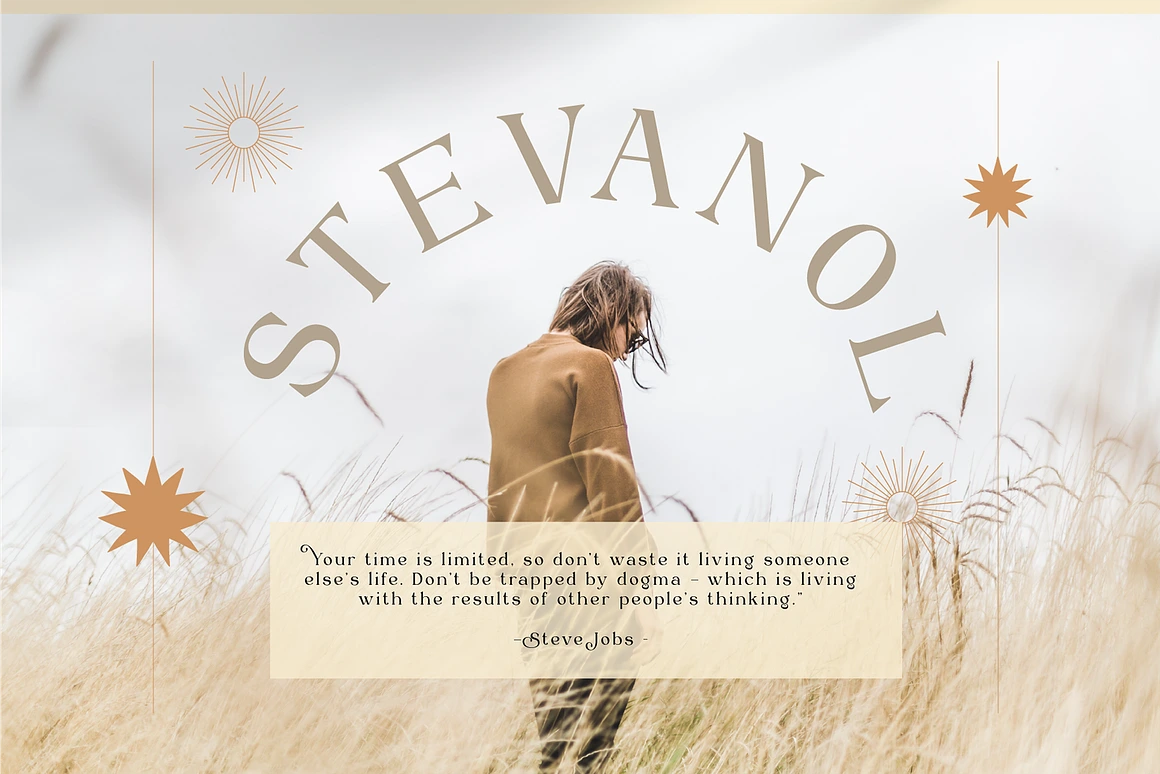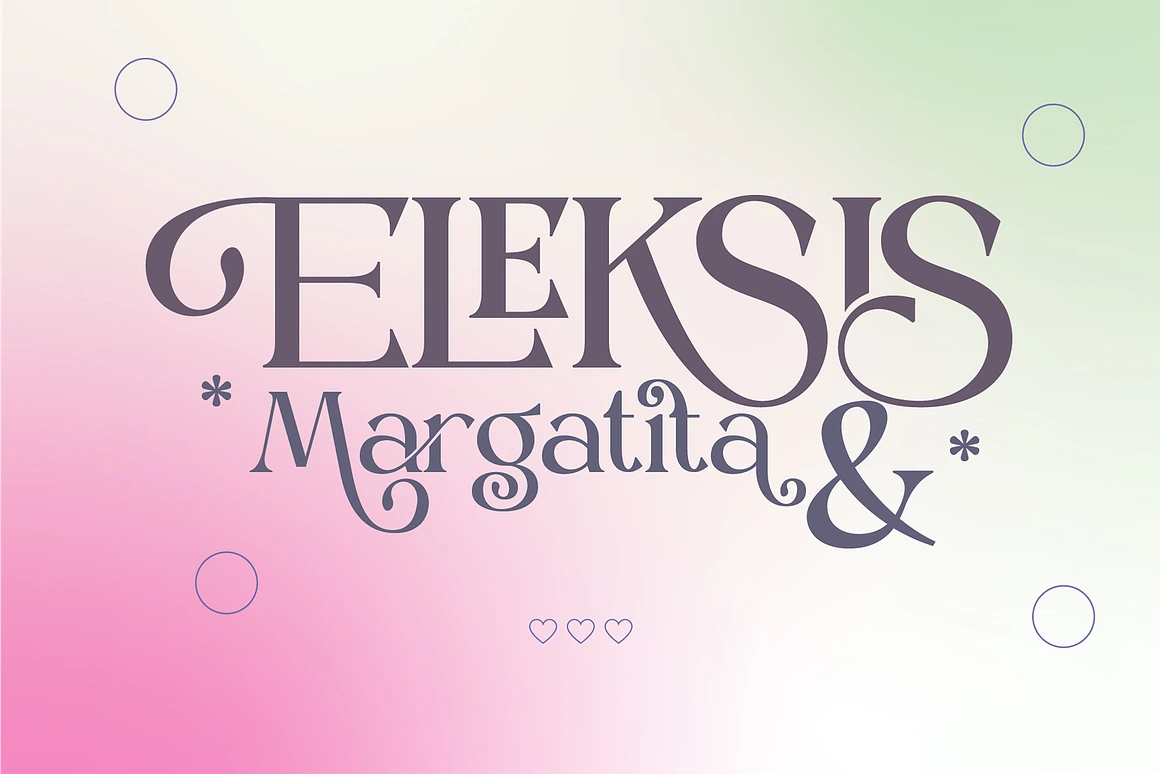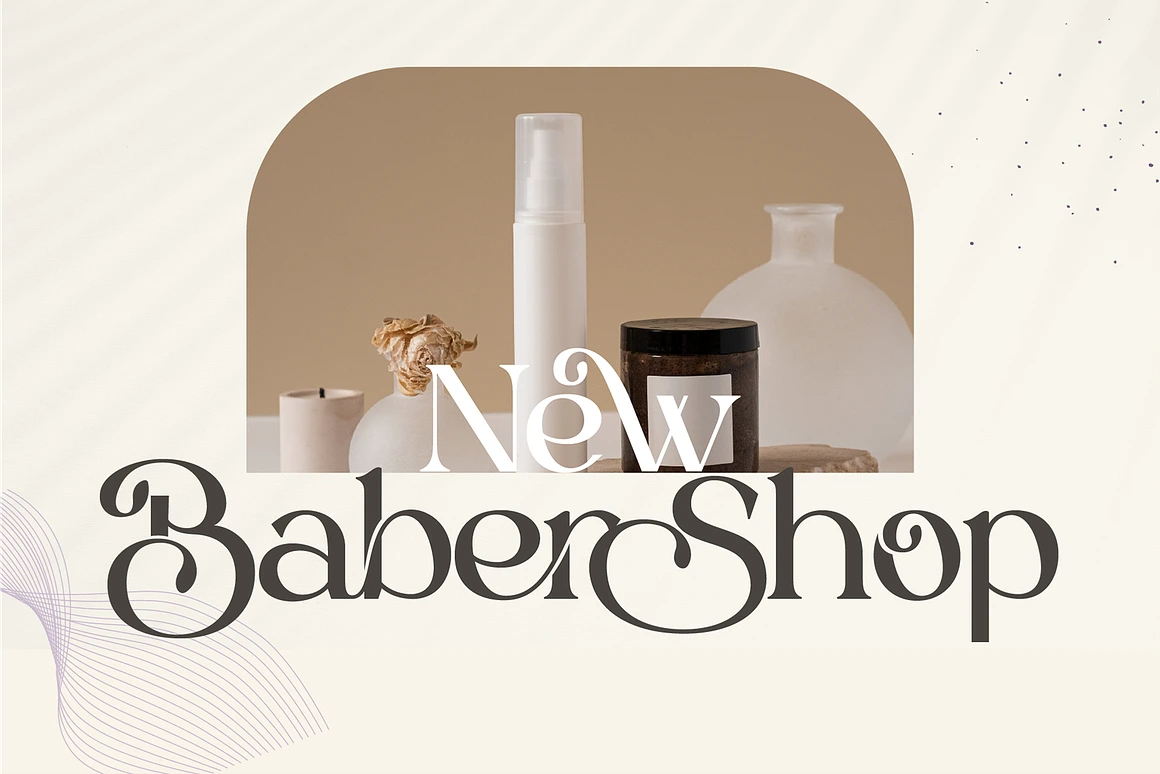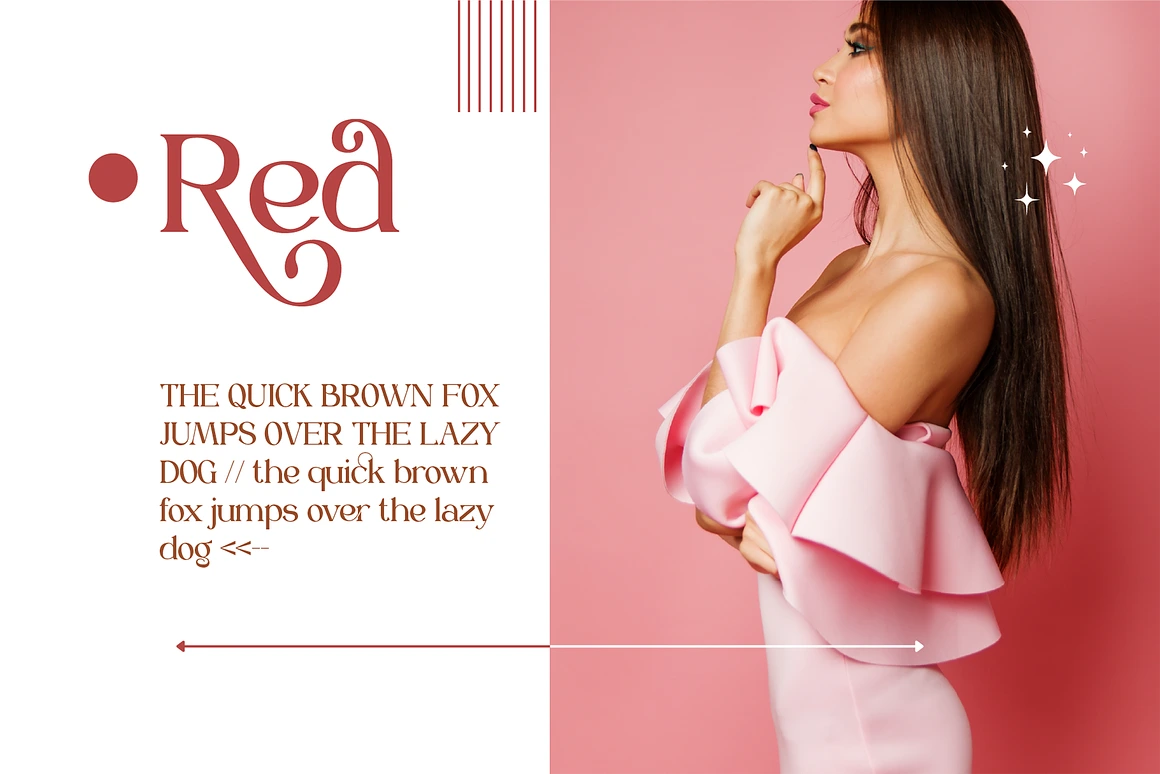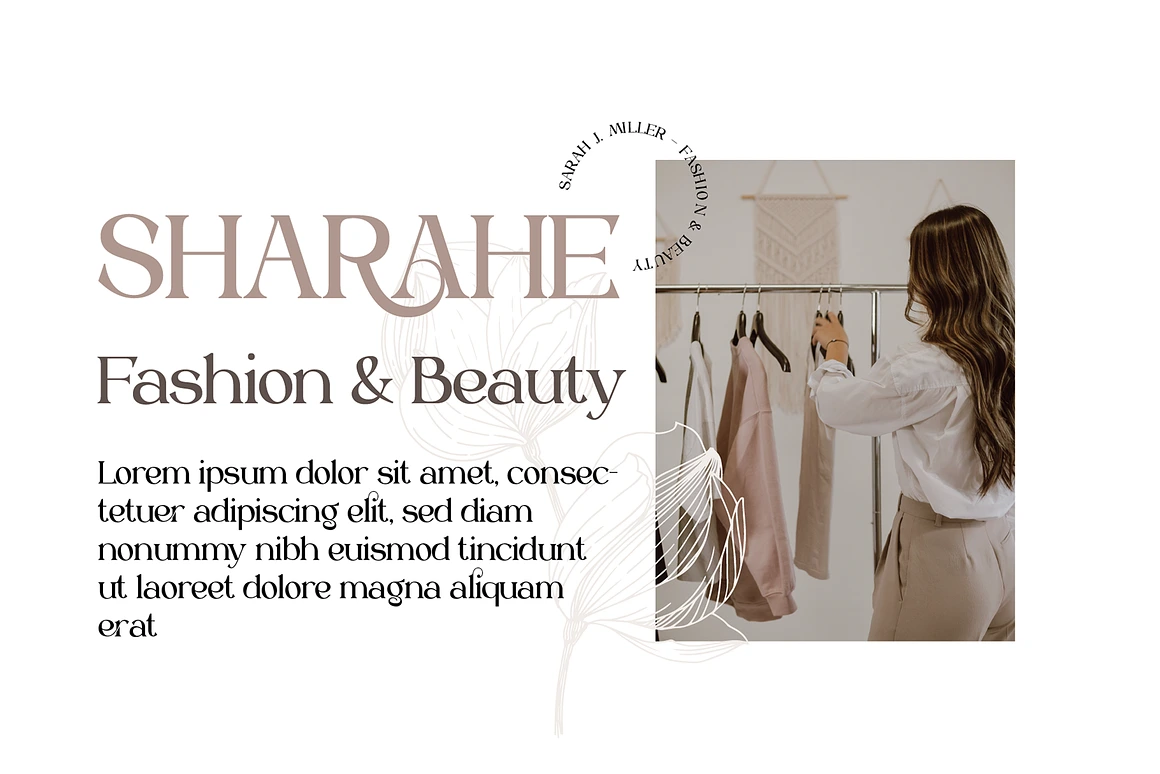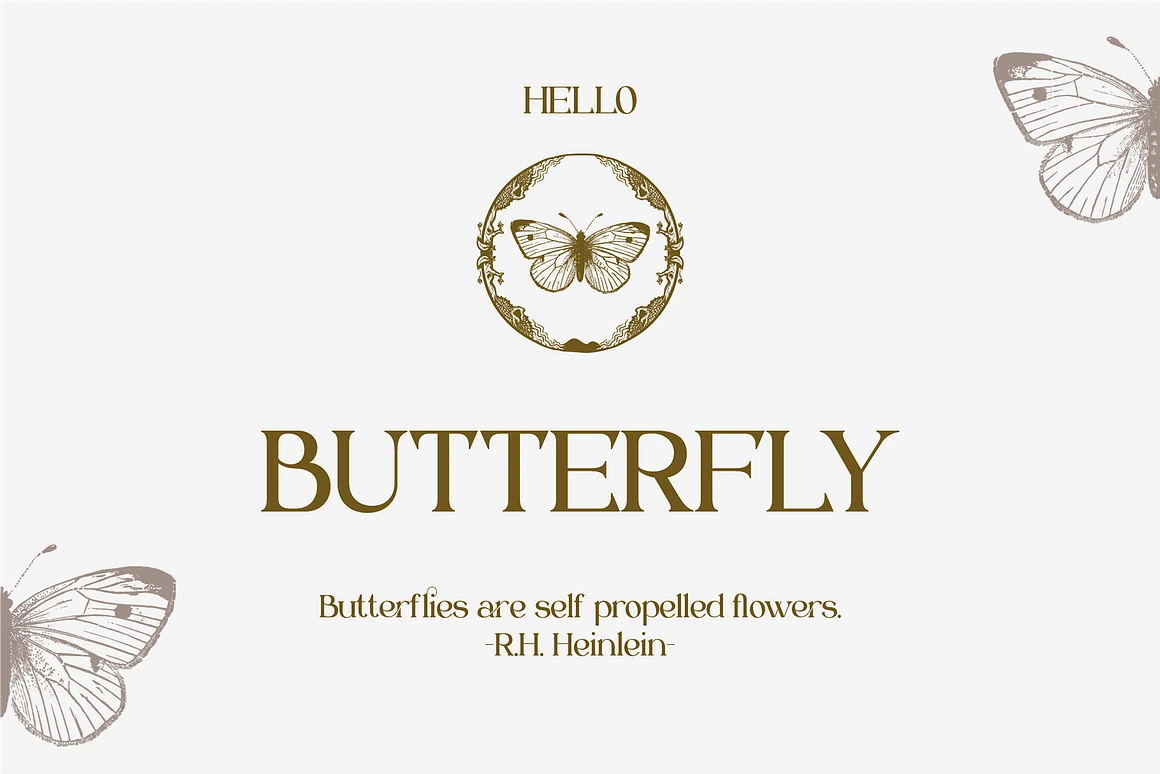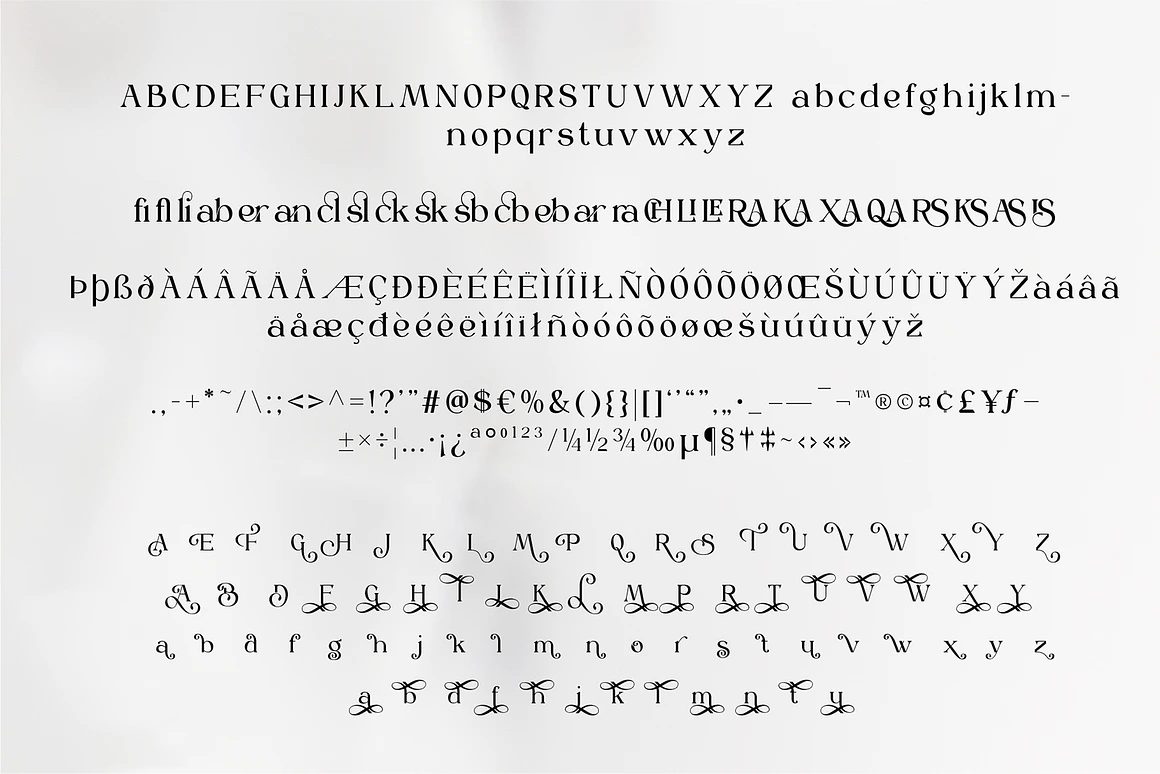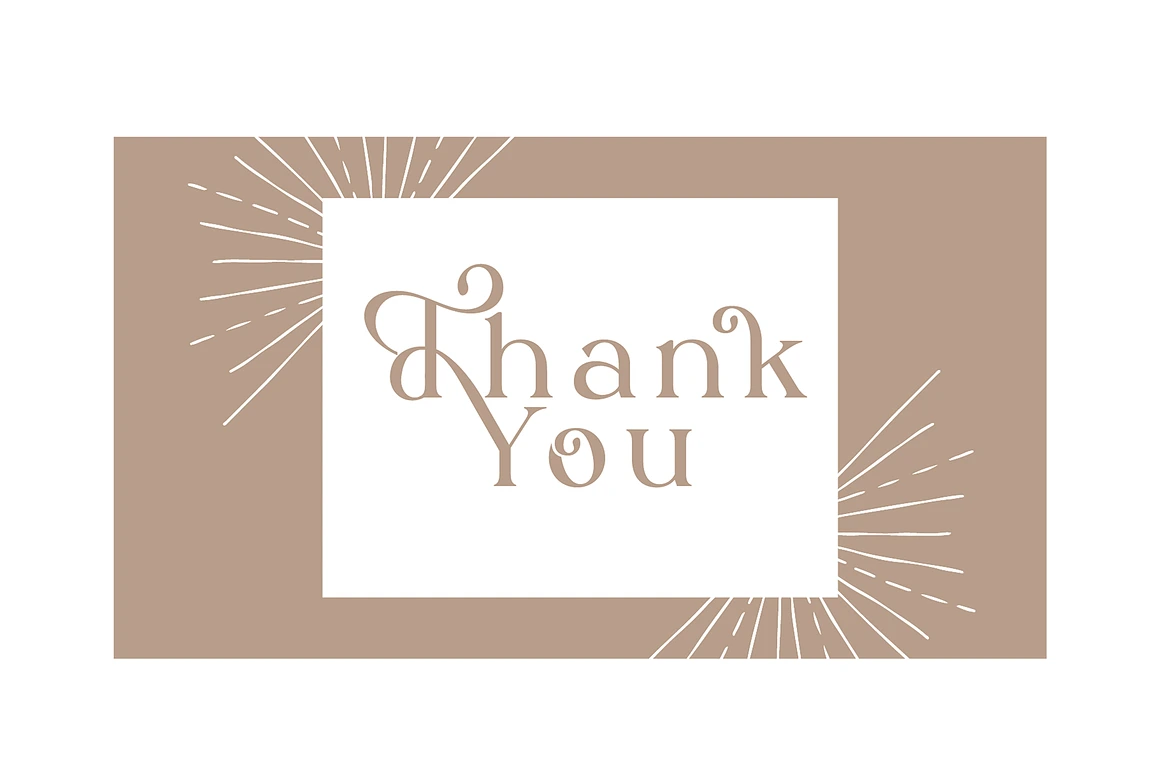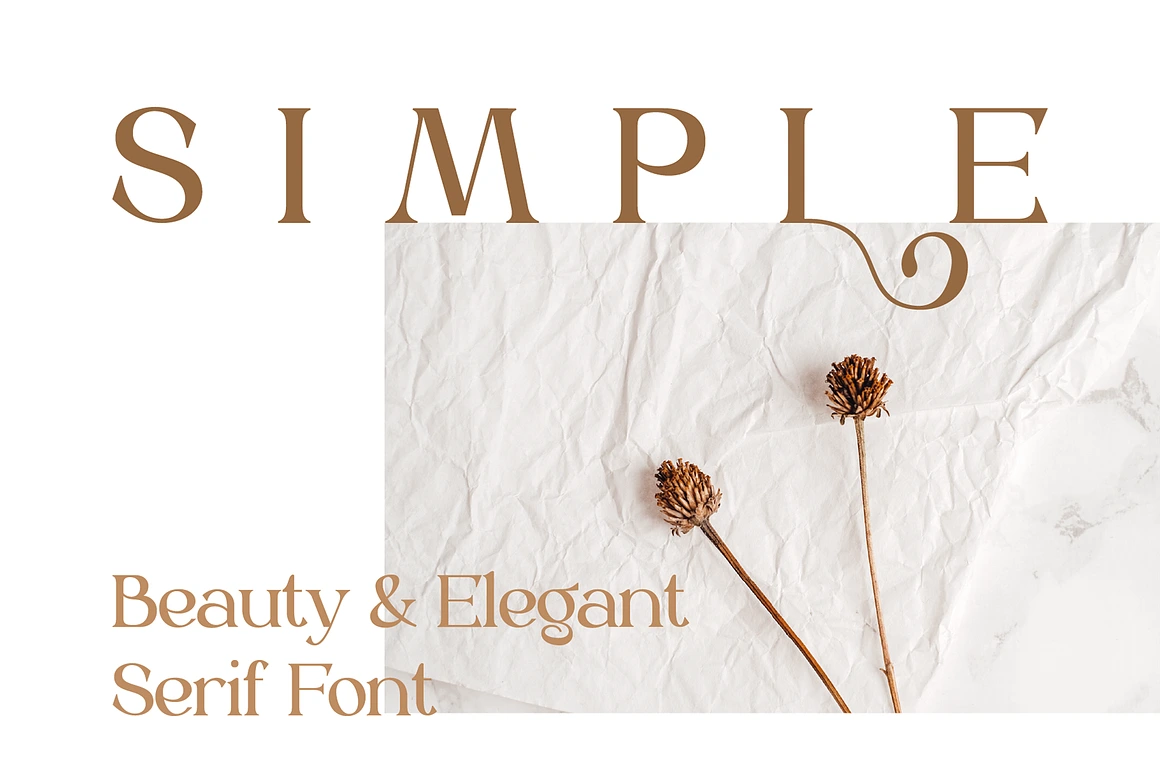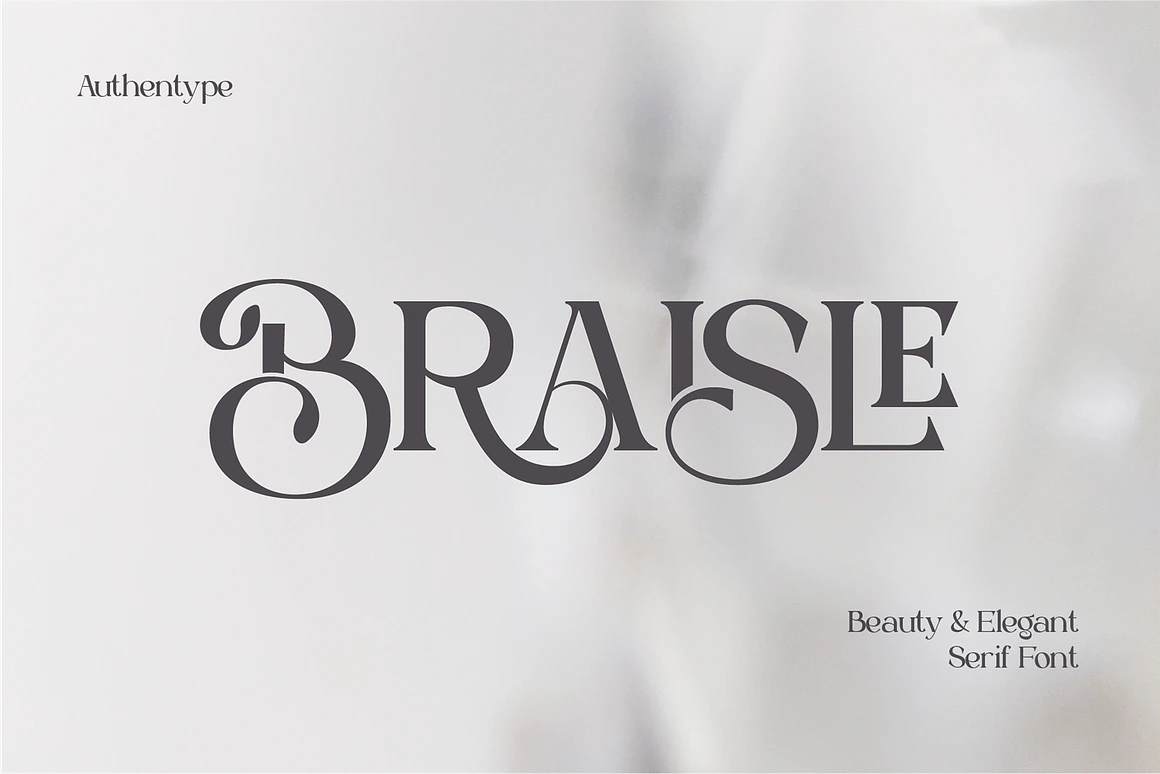
Braisle - Beauty and Elegant Serif
Braisle
Braisle – A Beauty and Elegant Serif Font
Braisle is a sophisticated serif font designed with graceful curves and timeless beauty. Its charming details and refined ligatures make it perfect for creating elegant, high-end designs.
Features:
Character Set: Standard glyphs with uppercase and lowercase letters
Includes: Numerals, punctuation marks, and a wide range of ligatures
Extras: Swashes and Stylistic Sets for added creativity
Multilingual Support: ä, ö, ü, Ä, Ö, Ü, ß, ¿, ¡